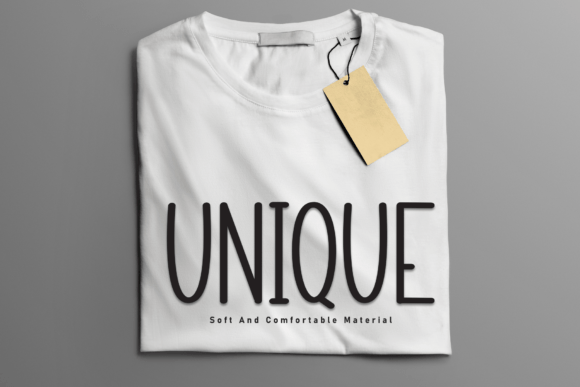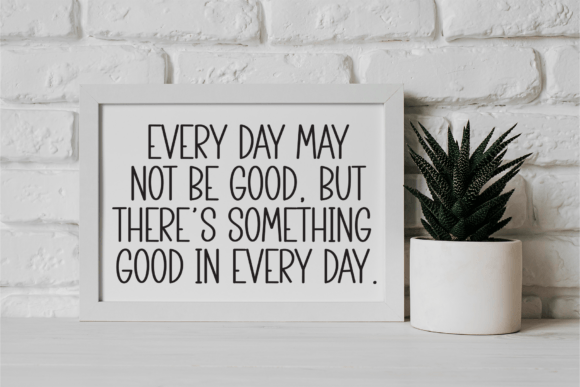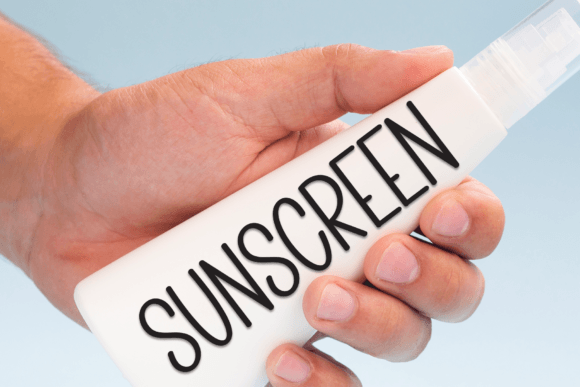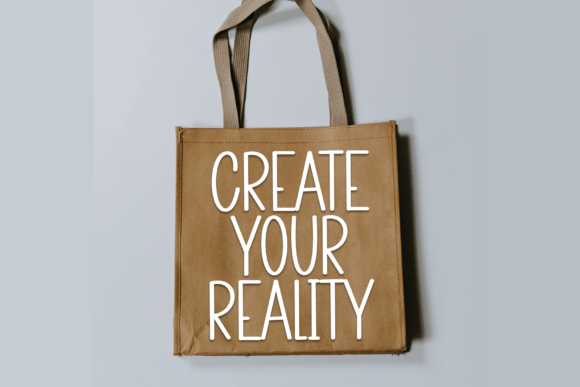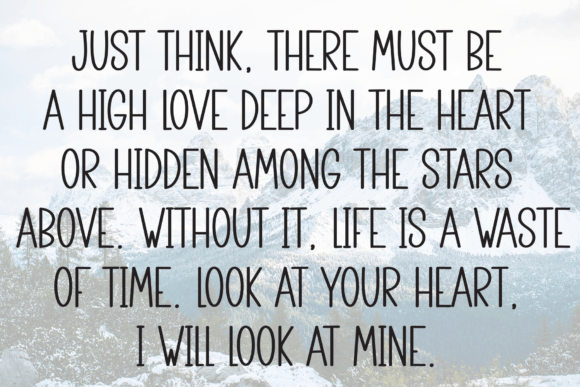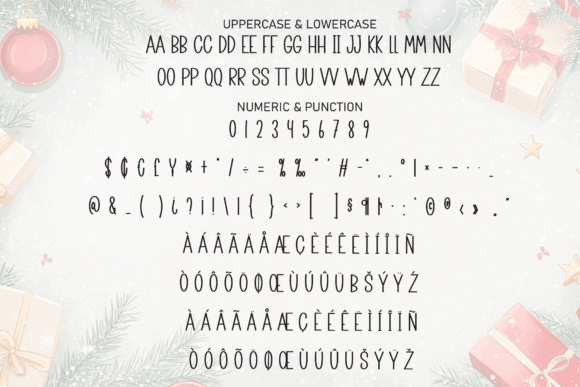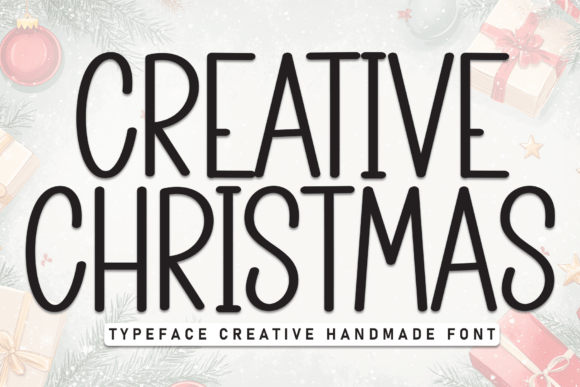
Deck the Halls with Creative Christmas Font: A Festive Treat for Designers and Crafters
Are you looking for a font that embodies the spirit of Christmas? Look no further than Creative Christmas Font! This fun and playful display font is perfect for adding a festive touch to your holiday designs. With its cheerful and quirky style, it brings joy and excitement to Christmas cards, posters, and more!
What Makes Creative Christmas Font So Special?
Creative Christmas Font is a one-of-a-kind typeface that captures the essence of the holiday season. Its unique and whimsical design makes it perfect for creating eye-catching and engaging holiday content. Whether you’re a designer, crafter, or DIY enthusiast, this font is sure to inspire your creativity and add a touch of festive fun to your projects.
Features of Creative Christmas Font
- Fun and Playful Design: Creative Christmas Font features a fun and playful design that’s perfect for the holiday season.
- Cheerful and Quirky Style: The font’s cheerful and quirky style brings joy and excitement to Christmas cards, posters, and more!
- Perfect for Holiday Designs: Whether you’re creating Christmas cards, holiday posters, or festive decorations, Creative Christmas Font is the perfect choice.
How to Use Creative Christmas Font in Your Designs
Using Creative Christmas Font in your designs is easy! Here are a few tips to get you started:
- Pair it with Other Fonts: Pair Creative Christmas Font with other fonts to create a unique and eye-catching design.
- Use it for Headlines and Titles: Use Creative Christmas Font for headlines and titles to add a touch of festive fun to your designs.
- Add it to Your Holiday Cards and Posters: Add Creative Christmas Font to your holiday cards and posters to make them stand out.
- Experiment with Different Colors: Experiment with different colors to find the perfect combination for your design.
Benefits of Using Creative Christmas Font
Using Creative Christmas Font in your designs has several benefits, including:
- Increased Creativity: Creative Christmas Font inspires creativity and adds a touch of festive fun to your designs.
- Time-Saving: With Creative Christmas Font, you can create professional-looking designs in no time.
- Unique and Eye-Catching Designs: Creative Christmas Font helps you create unique and eye-catching designs that stand out from the crowd.
Creative Christmas Font is a fun and playful display font that’s perfect for adding a festive touch to your holiday designs. With its cheerful and quirky style, it brings joy and excitement to Christmas cards, posters, and more! Whether you’re a designer, crafter, or DIY enthusiast, this font is sure to inspire your creativity and add a touch of festive fun to your projects. So why wait? Download Creative Christmas Font today and start creating your own festive designs!